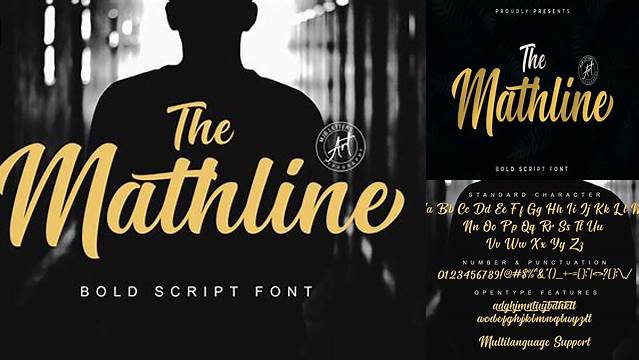
Hey guys! Are you looking to spice up your design projects with a touch of elegance and modernity? Look no further! In the realm of typography, the Mathline Bold Script font stands out as a captivating choice, blending sophistication with a contemporary flair. This article will dive deep into the world of Mathline Bold Script, exploring its characteristics, ideal use cases, and, most importantly, how you can snag it for free. So, buckle up and let's embark on this typographic journey!
What is Mathline Bold Script Font?
Mathline Bold Script is more than just a font; it's a statement. Imagine a typeface that effortlessly combines the fluidity of traditional calligraphy with the boldness of modern design β that's Mathline Bold Script in a nutshell. Characterized by its smooth, sweeping strokes and confident weight, this font exudes a sense of refined energy. The letterforms dance across the page, creating a visual rhythm that is both pleasing and engaging. Mathline Bold Script isn't just about aesthetics; it's about making an impression. Its bold nature ensures readability, while the script style adds a personal, handcrafted touch. This makes it incredibly versatile, lending itself beautifully to a wide range of applications. Think logos that command attention, headings that exude sophistication, and invitations that whisper elegance. The magic of Mathline Bold Script lies in its ability to elevate any design, adding a touch of class and personality. Itβs the kind of font that whispers, βThis is something special,β making it a favorite among designers who seek to create visually stunning and memorable experiences. Whether you're crafting a brand identity or designing a wedding invitation, Mathline Bold Script brings a touch of artistry and finesse that sets your work apart. This font isn't just a tool; it's an artistic partner, ready to help you bring your creative visions to life. So, let's explore how this font can transform your projects and why it's such a valuable asset in any designer's toolkit.
Key Features of Mathline Bold Script
To truly appreciate the allure of Mathline Bold Script, let's delve into its key features. First and foremost, its bold weight is a defining characteristic. This isn't a delicate, whisper-thin script; it's a font that commands attention. The boldness ensures excellent readability, making it suitable for headlines, titles, and even shorter paragraphs where you want to make a statement. But it's not just about weight; the script style itself is meticulously crafted. Each letterform flows seamlessly into the next, creating a sense of rhythm and harmony. The loops and curves are elegant without being overly ornate, striking a perfect balance between sophistication and approachability. Another noteworthy feature is its versatility. Mathline Bold Script isn't a one-trick pony; it adapts beautifully to various design contexts. Its clean lines and modern aesthetic make it a great fit for contemporary projects, while its script nature adds a touch of timeless elegance that works equally well in more traditional designs. Beyond its aesthetic qualities, Mathline Bold Script also boasts excellent technical capabilities. It's typically available in various formats (such as OTF and TTF), ensuring compatibility across different operating systems and design software. Many versions also include a range of glyphs and ligatures, allowing for even more creative expression. Ligatures, in particular, can add a subtle yet significant touch of sophistication by smoothly connecting certain letter pairs, enhancing the overall flow and visual appeal of the text. In essence, Mathline Bold Script is a font that's both visually stunning and technically sound, making it a valuable asset for any designer looking to add a touch of class and personality to their work. Its blend of boldness, elegance, and versatility ensures that it will remain a go-to choice for a wide range of projects.
Use Cases for Mathline Bold Script
The versatility of Mathline Bold Script shines through in its myriad use cases. This font isn't confined to a specific niche; it thrives in diverse design landscapes. Imagine a sleek, modern logo for a luxury brand β Mathline Bold Script can lend an air of sophistication and exclusivity. Its bold presence ensures that the brand name stands out, while the script style adds a touch of personality and artistry. On the other end of the spectrum, consider wedding invitations. The font's elegant curves and flowing lines evoke a sense of romance and timelessness, making it a perfect choice for conveying the specialness of the occasion. It adds a personal, handcrafted feel that printed fonts often lack, giving invitations a touch of bespoke charm. But the applications don't stop there. Mathline Bold Script is equally at home in website headers, social media graphics, and even product packaging. Its readability ensures that your message is clear and impactful, while its distinctive style helps your designs stand out from the crowd. Think about a fashion blog β Mathline Bold Script could be used to create eye-catching headlines that grab readers' attention. Or envision a product label for a high-end cosmetic β the font can convey a sense of luxury and quality. The key to successfully using Mathline Bold Script lies in understanding its strengths. It excels at adding a touch of elegance and personality, so it's best used in contexts where you want to create a sense of sophistication or artistry. However, its boldness also means that it can be used to make a statement and command attention. So, whether you're designing a logo, creating invitations, or crafting social media content, Mathline Bold Script offers a versatile and impactful typographic solution. Its ability to blend boldness with elegance makes it a valuable tool in any designer's arsenal.
Mathline Bold Script is a fantastic font that can add a touch of elegance and personality to your design projects. Its versatility and distinctive style make it a valuable asset for any designer. By understanding its characteristics, exploring free download options, and following best practices for usage, you can harness the power of Mathline Bold Script to create visually stunning and impactful designs. So go ahead, download it, install it, and let your creativity flow! This font is ready to help you elevate your work and make a lasting impression. Remember, the key is to use it wisely and in the right context, and you'll be amazed at the results. Happy designing, guys!